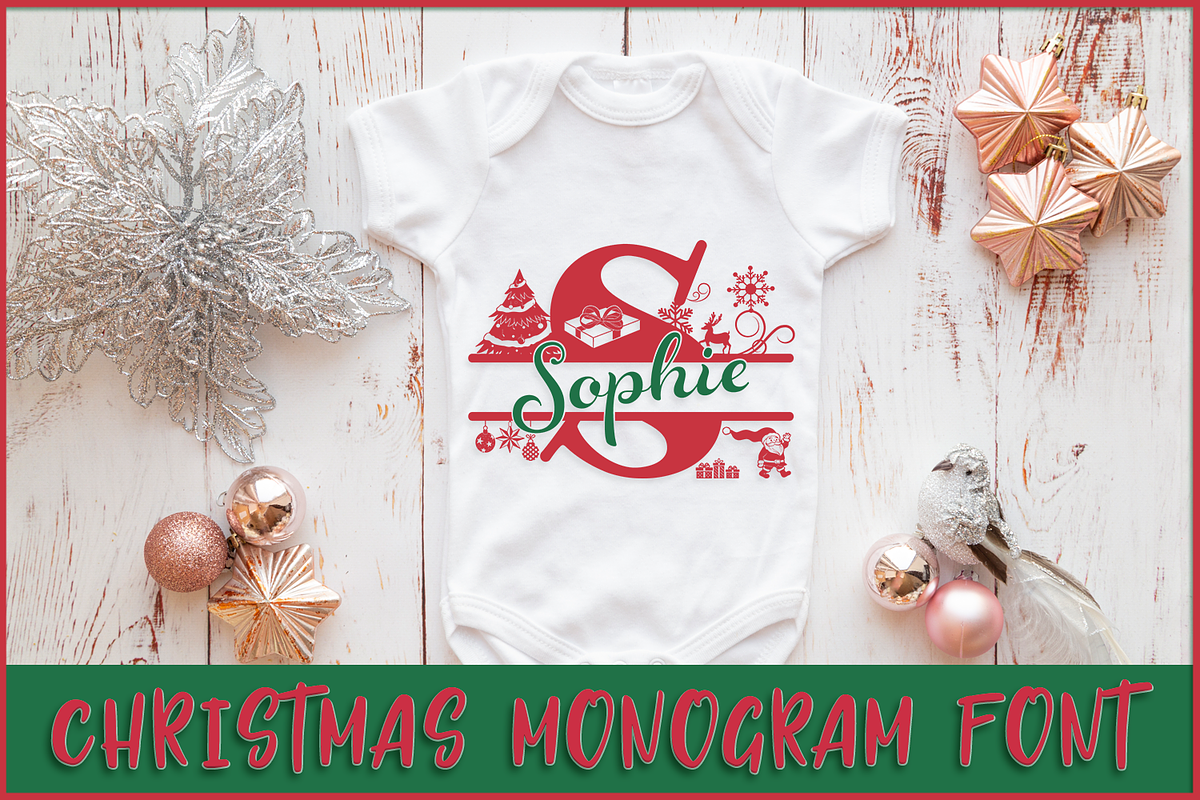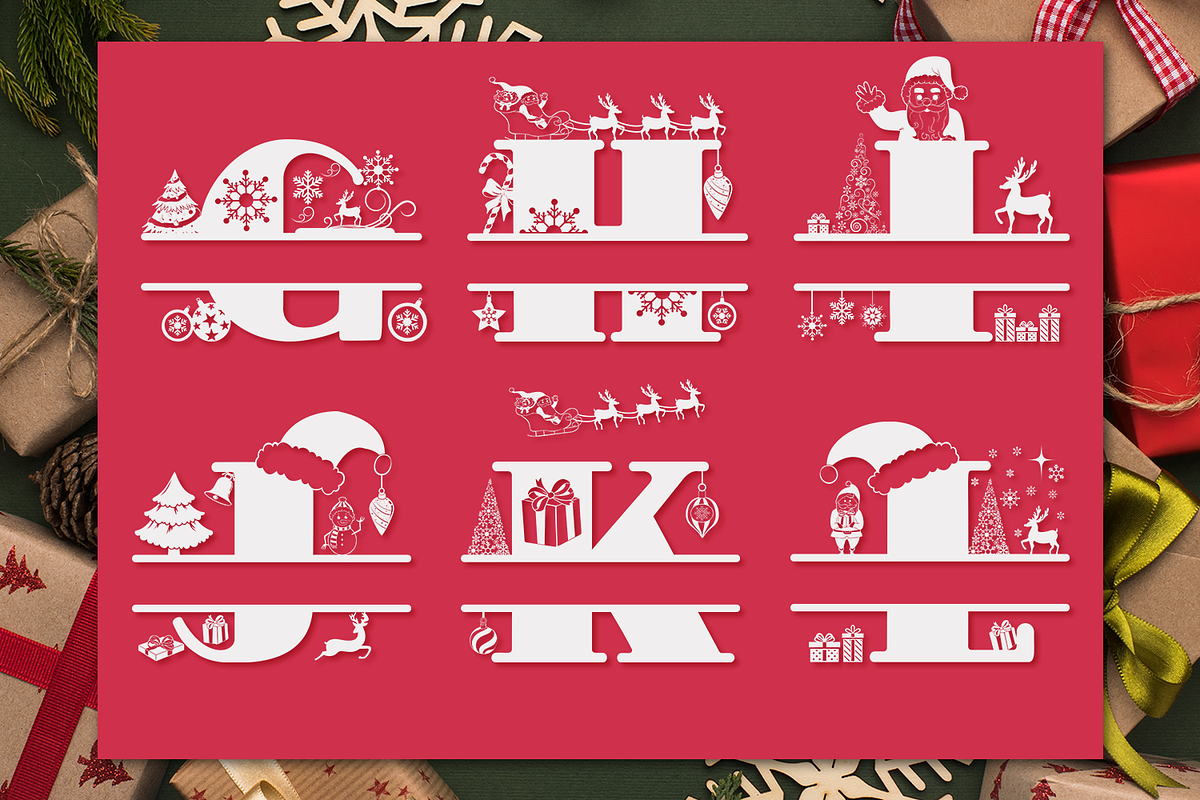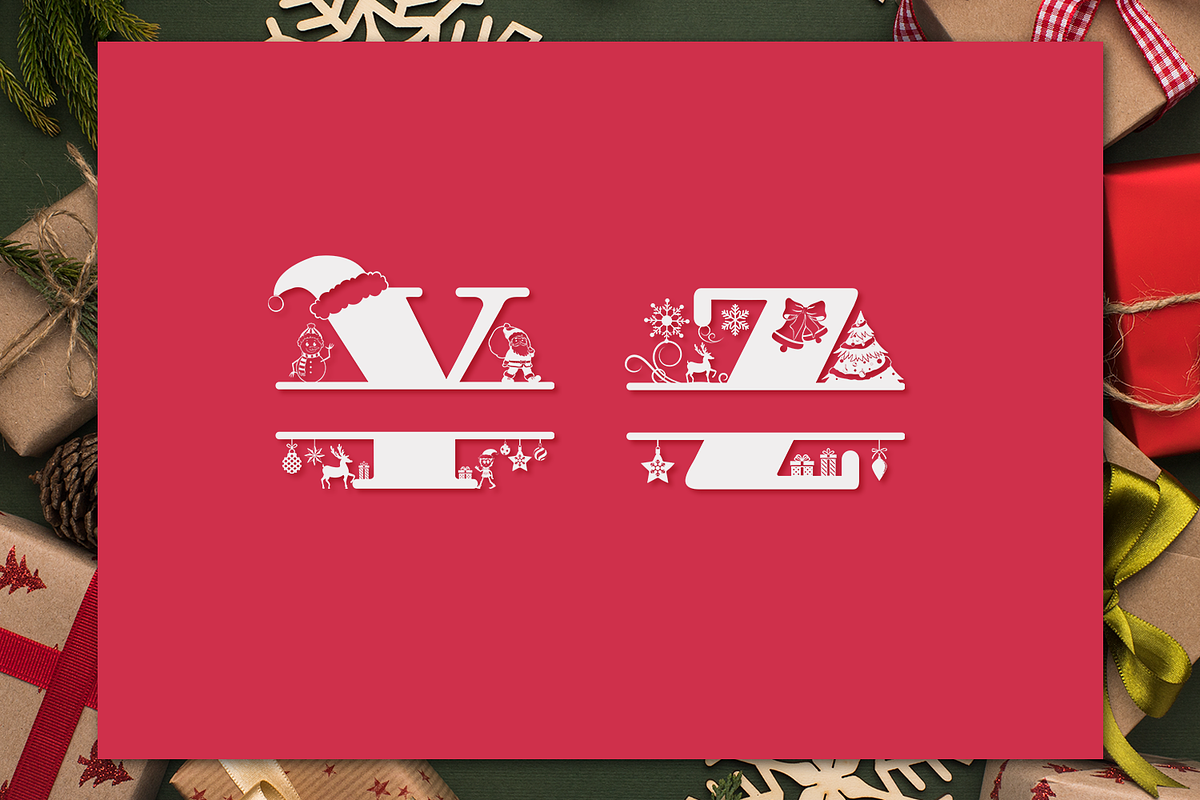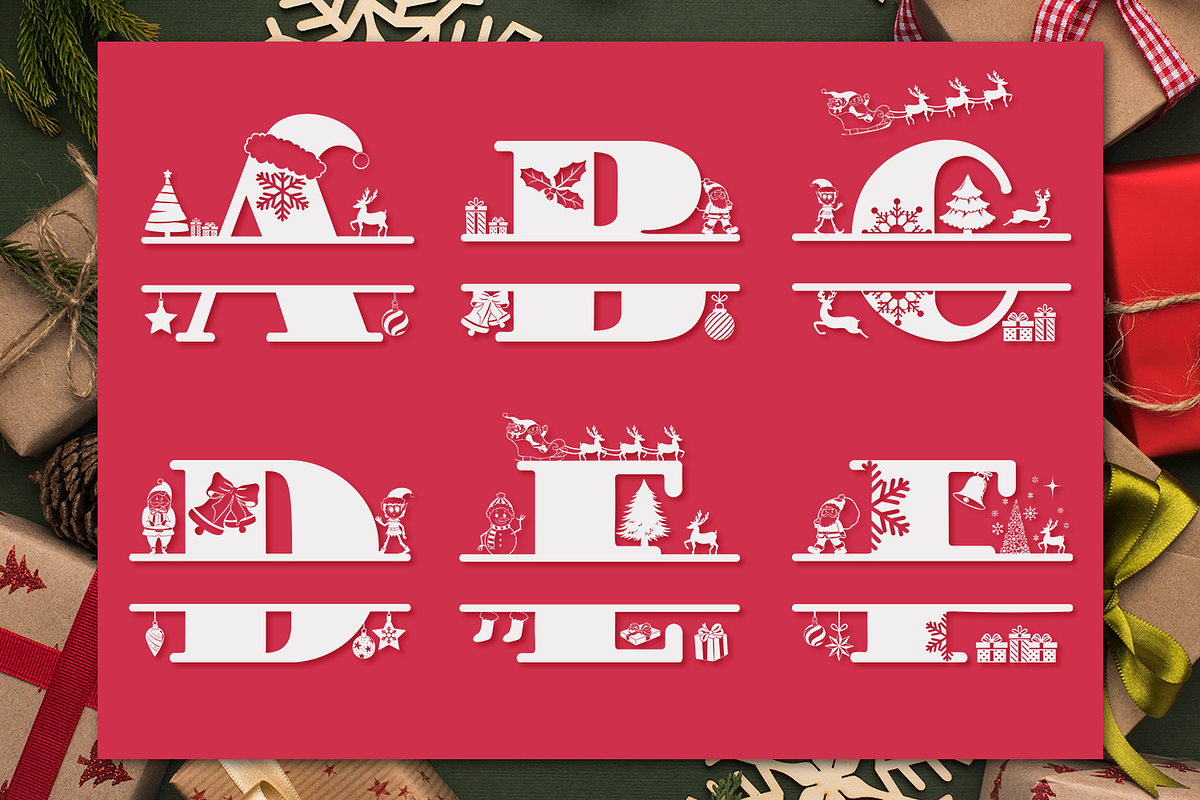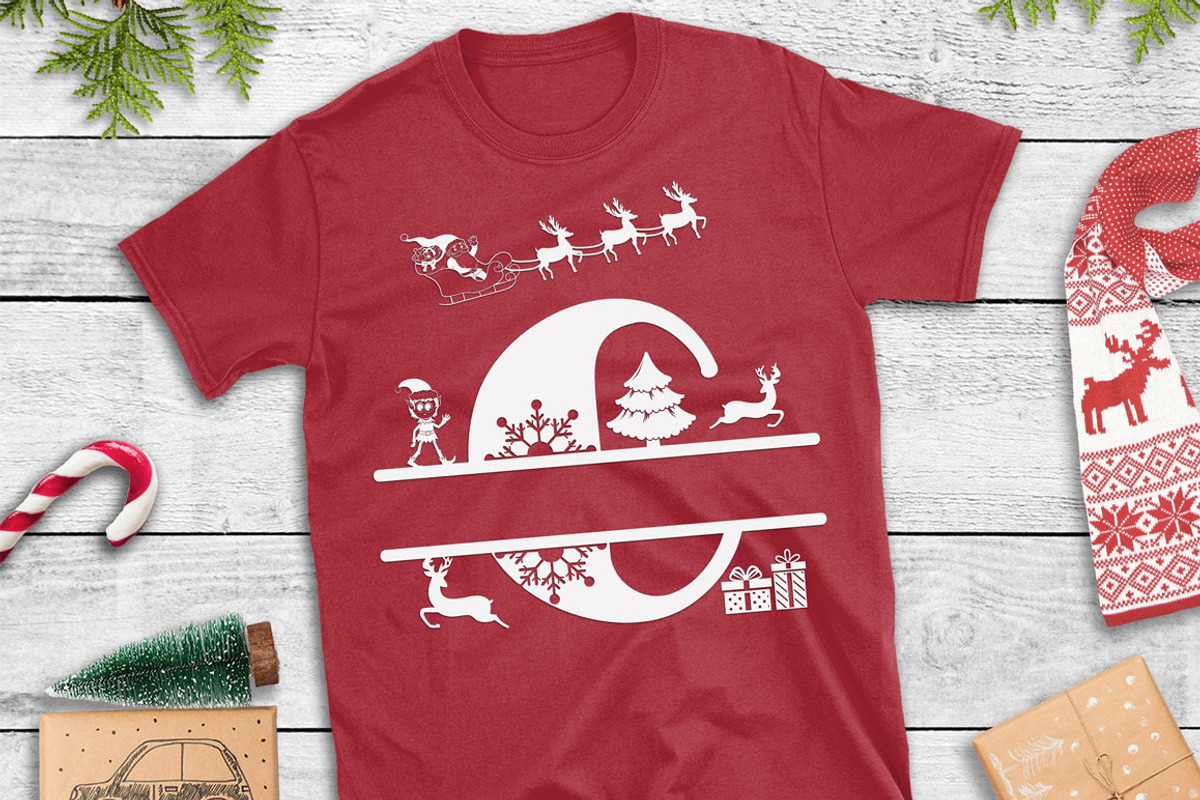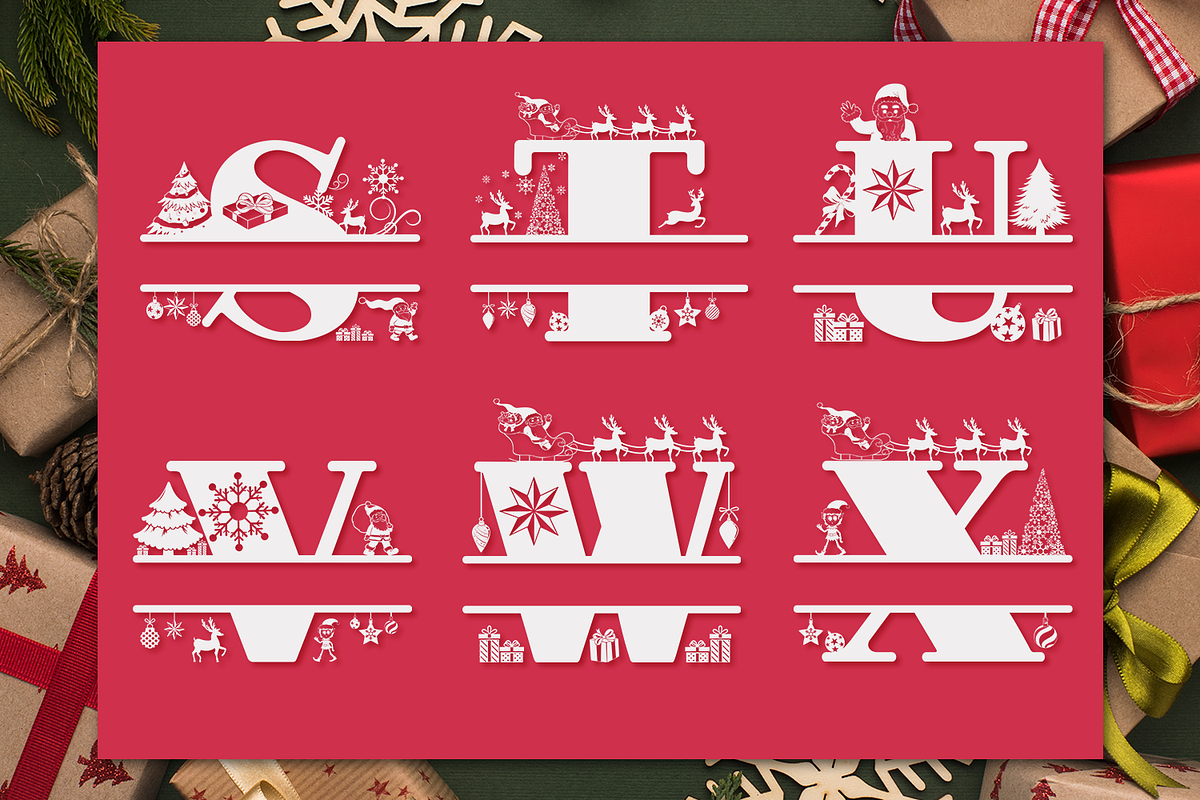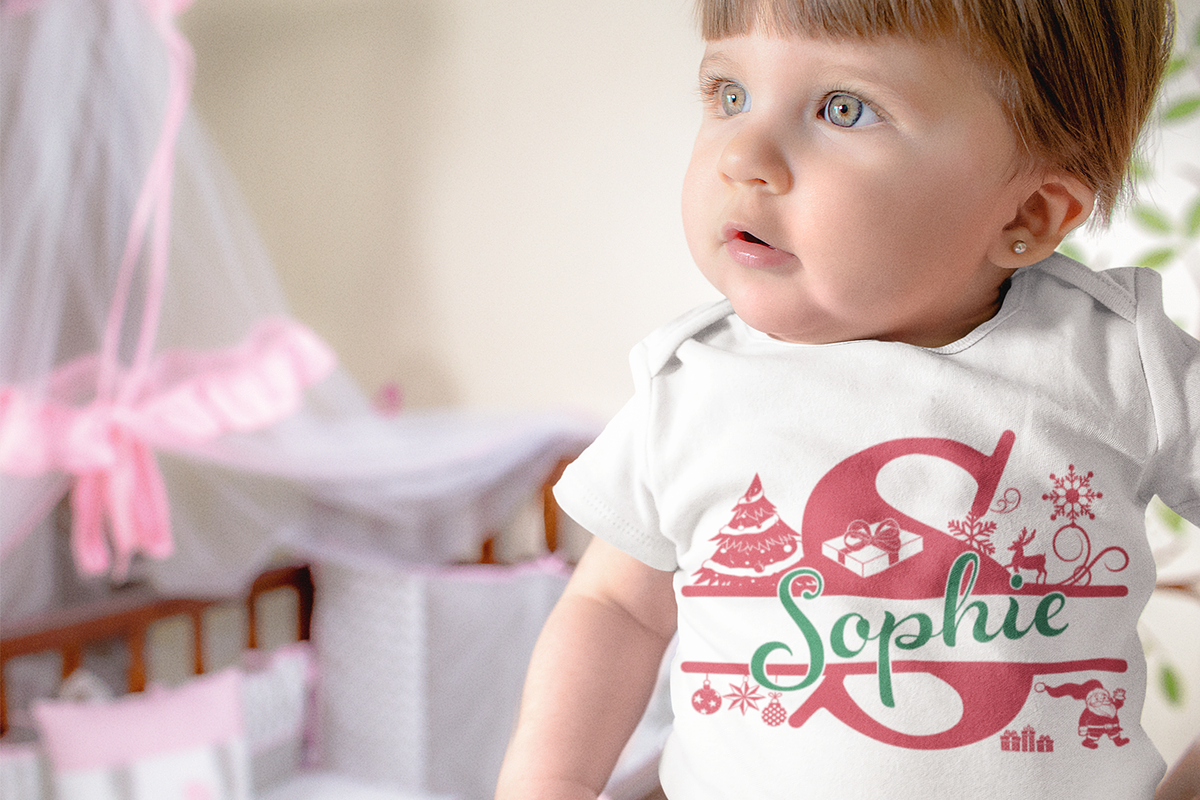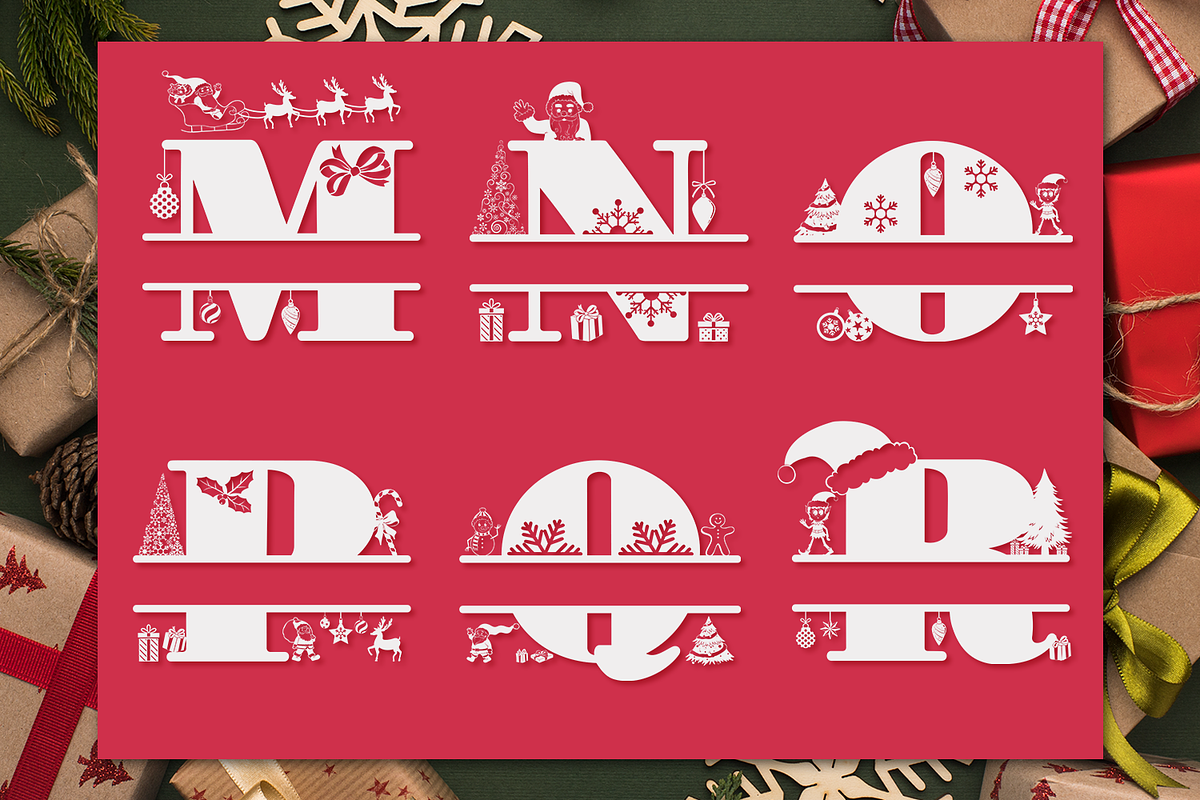
Christmas Monogram Font
The font is created from scratch, using as little points as possible to ensure you get the best results with minimum difficulty. Optimized for crafters with Cricut Design Space, Silhouette Studio, ScanNCut, and all major brands. The cutting takes much less time because the number of points in each letter is reduced to a minimum!
Christmas Monogram Font. Comes with uppercase A-Z letters. No numbers or punctuation
Christmas Monogram Font by Anastasia Feya fits naturally into Branding, posters, packaging, typography.